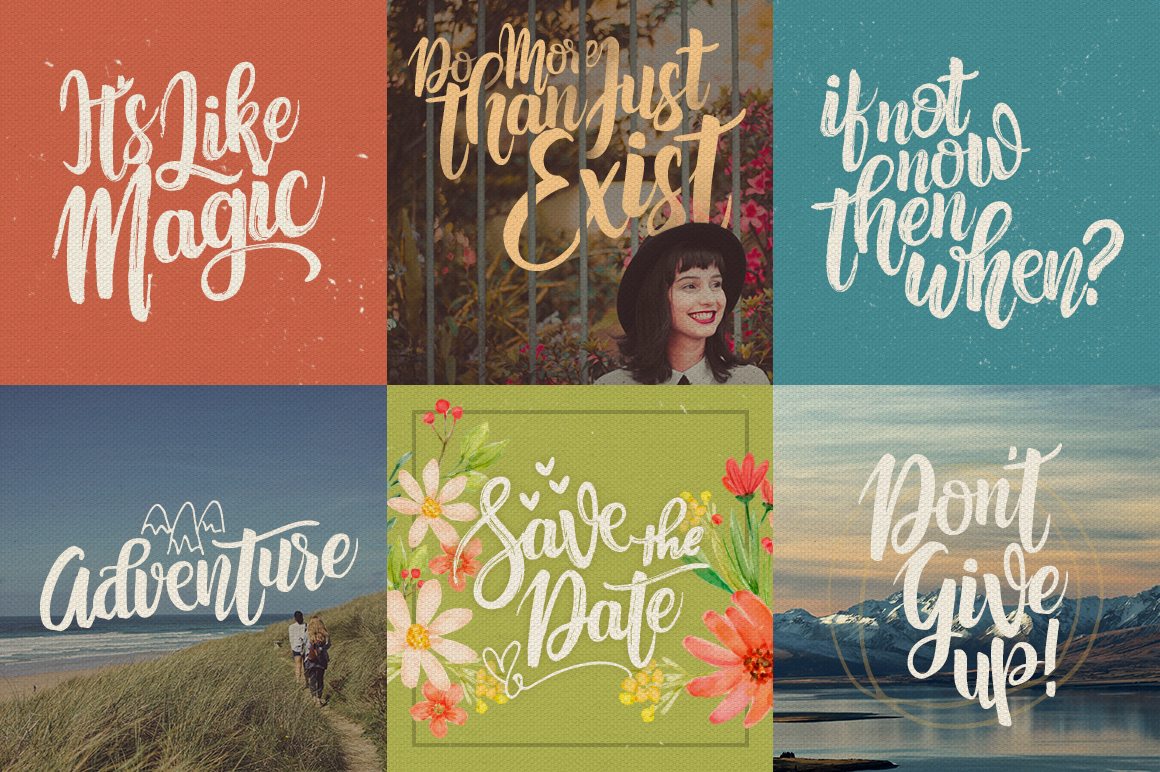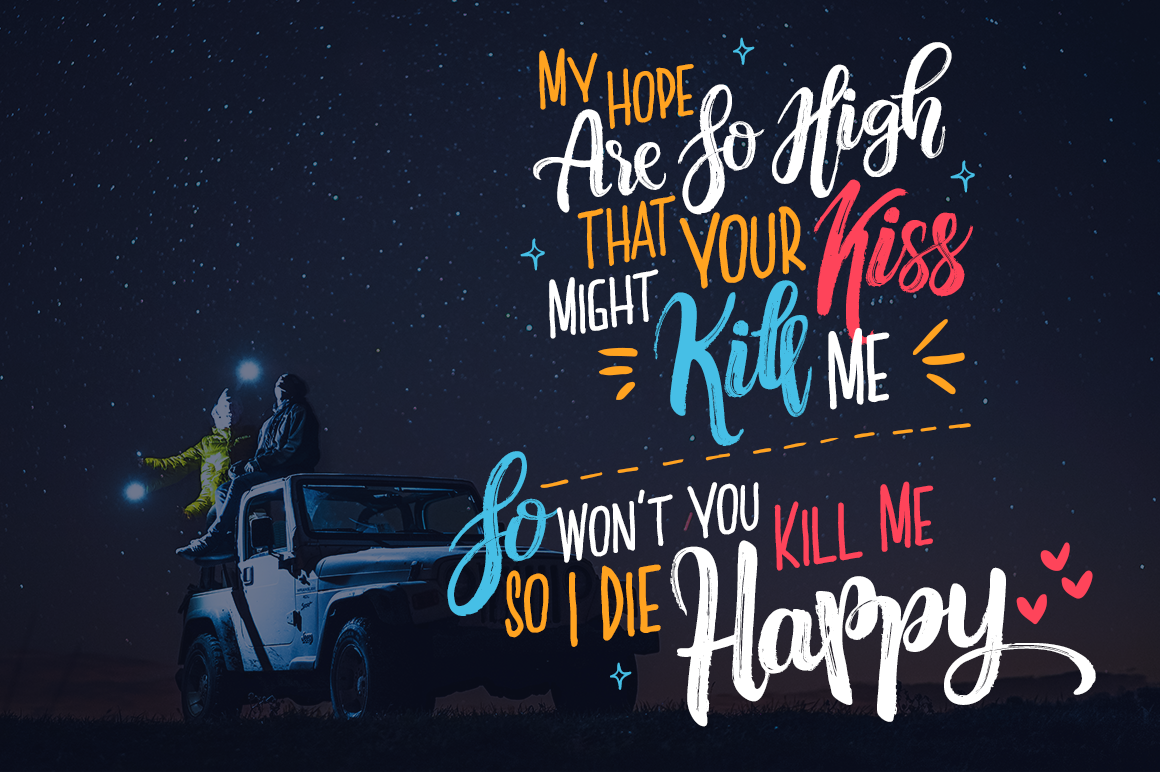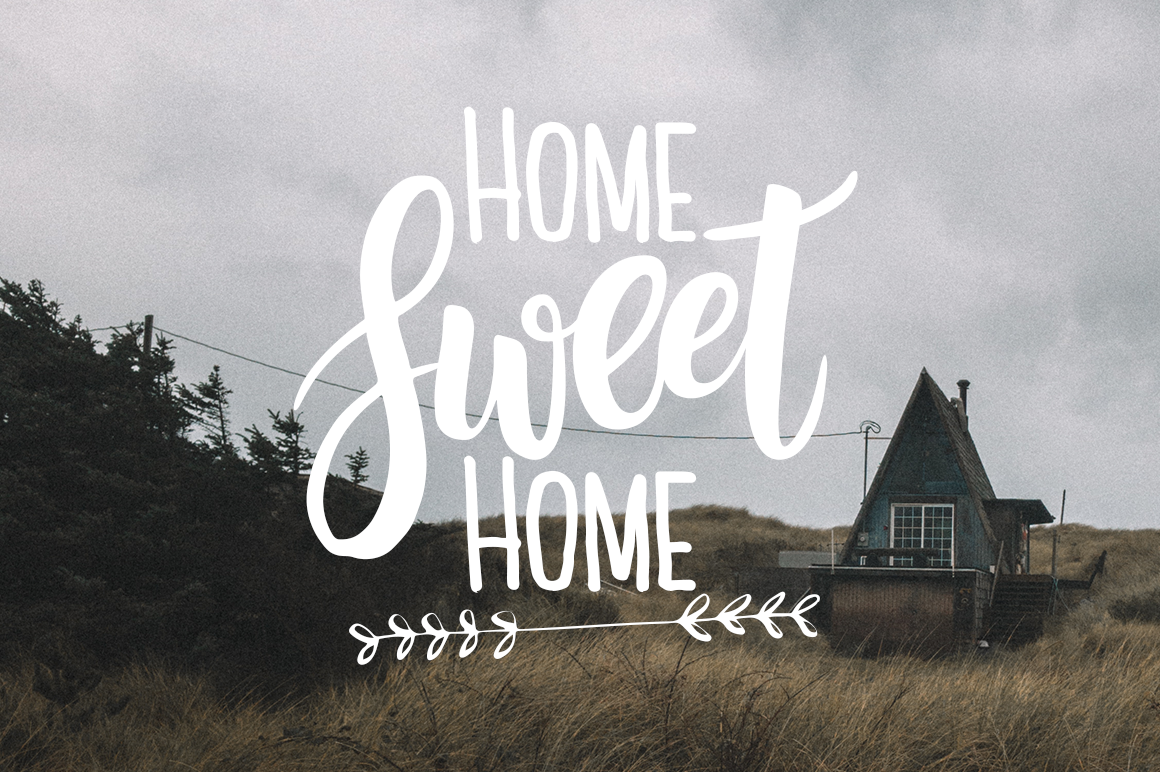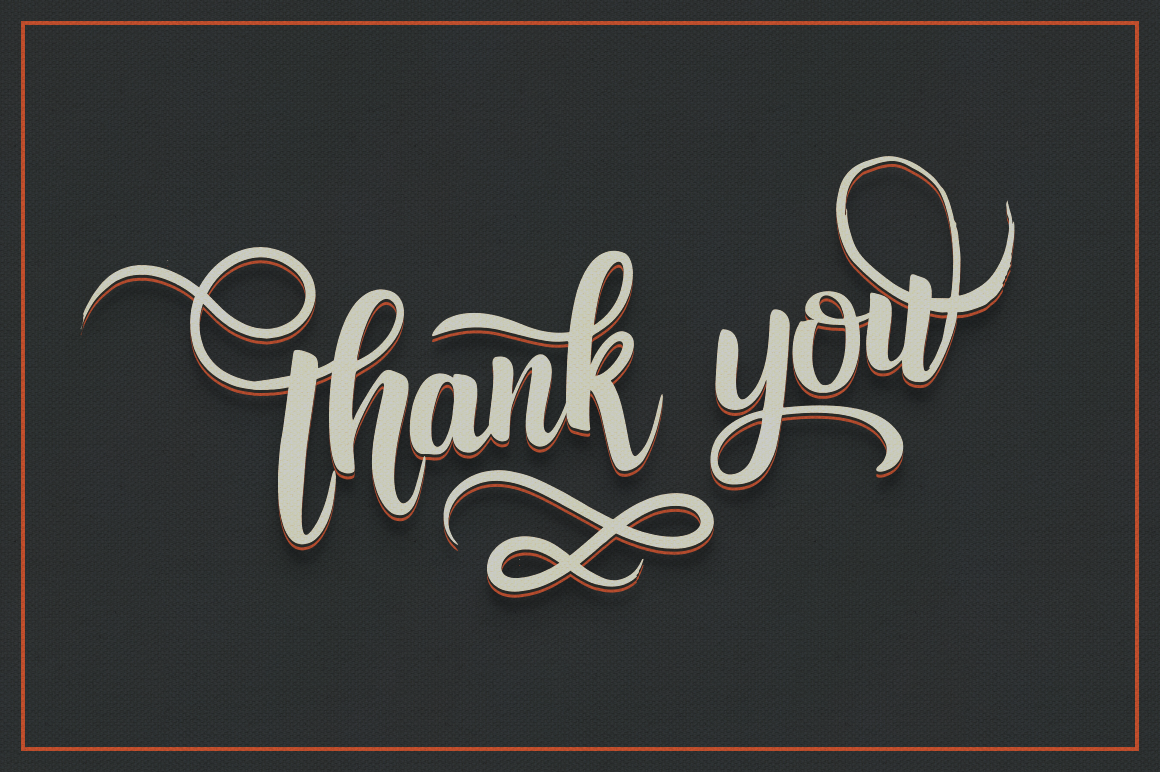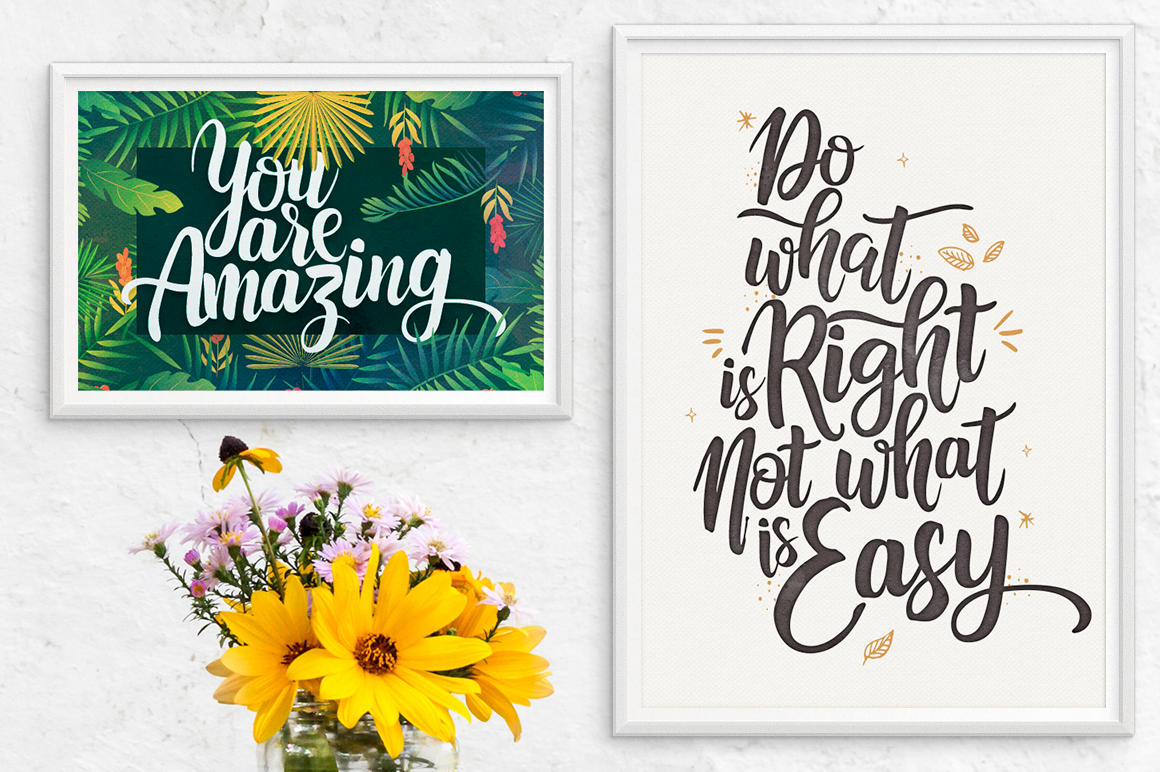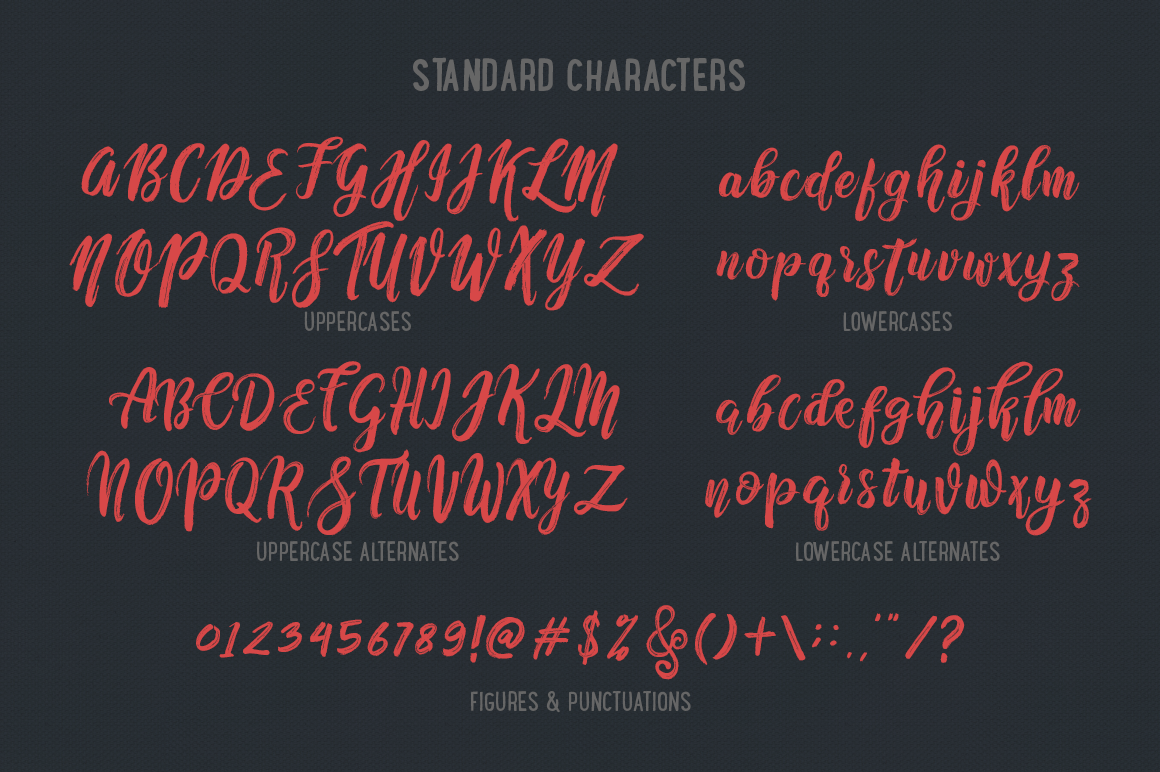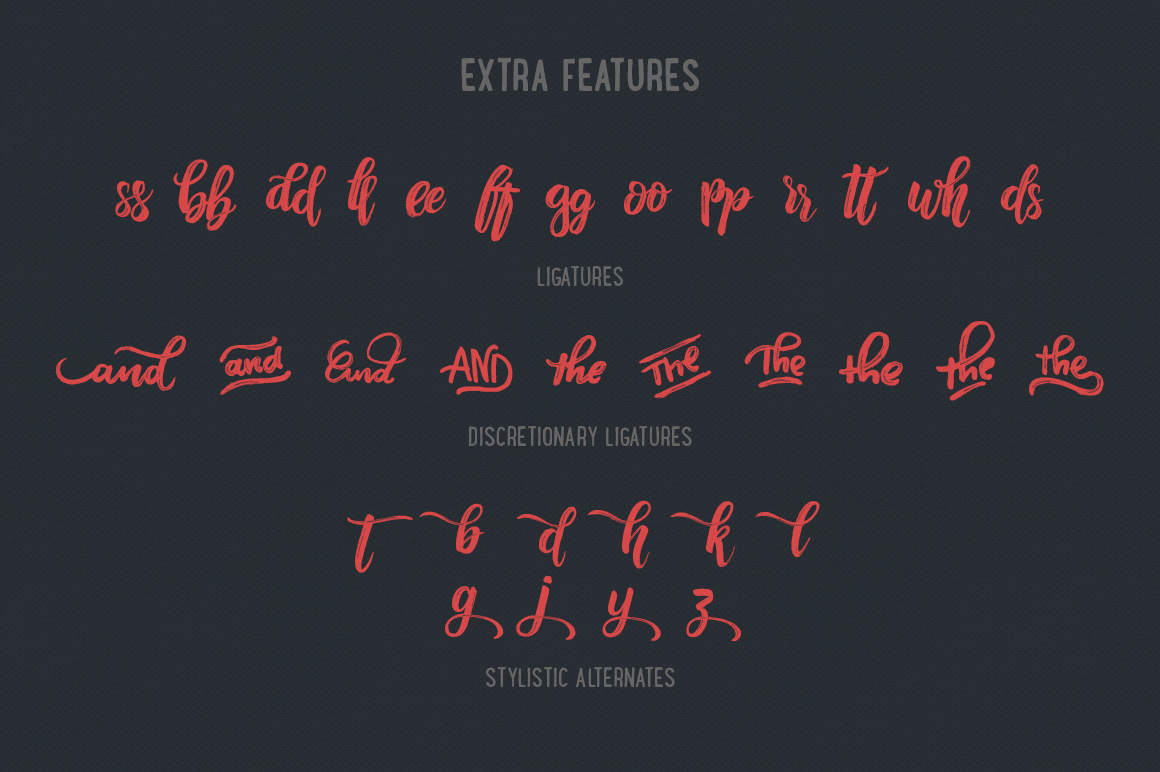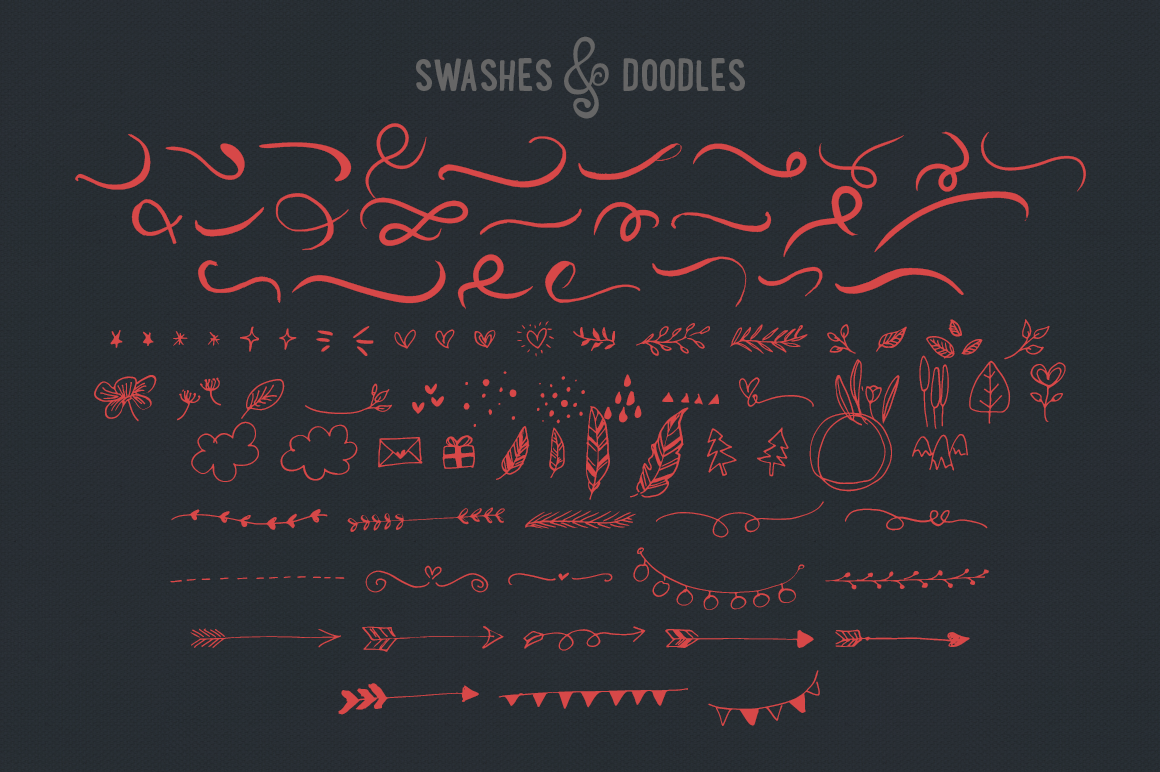
Nafasyah Font
About Nafasyah Font
Nafasyah is a gorgeous hand-lettered font that gives a personal touch to your awesome words and beautiful artwork. Nafasyah’s updated version comes with regular, brushed, sans and extra (swashes + doodles) version. This is a gorgeous script with a lot of movement and beautiful strokes for truly beautiful designs.